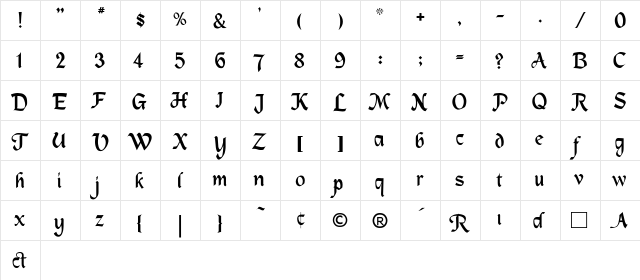
RSMacHumaine Regular
Design Context for RSMacHumaine Typeface
RSMacHumaine is a composed and adaptable typeface that performs quietly and consistently across a wide range of design contexts.